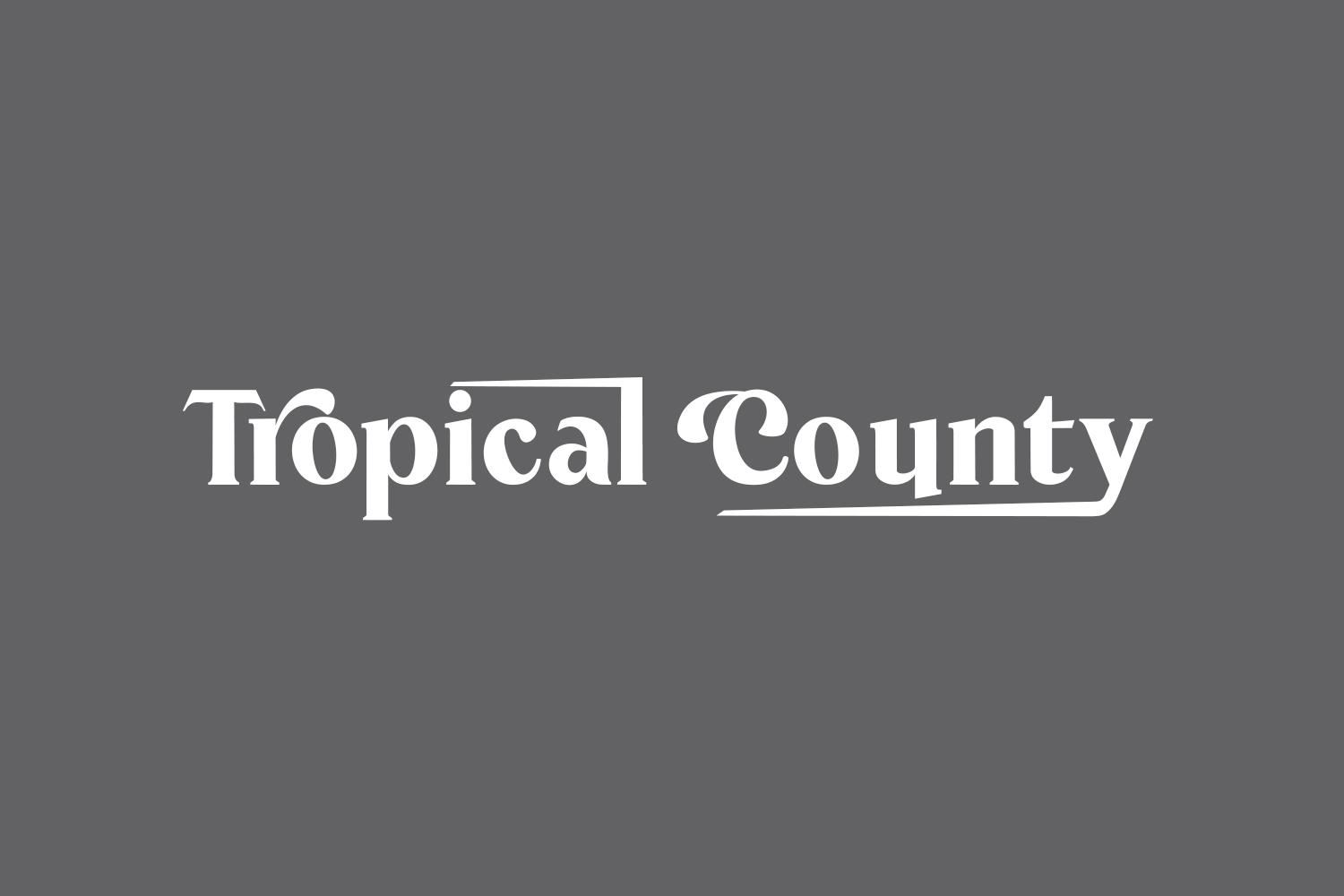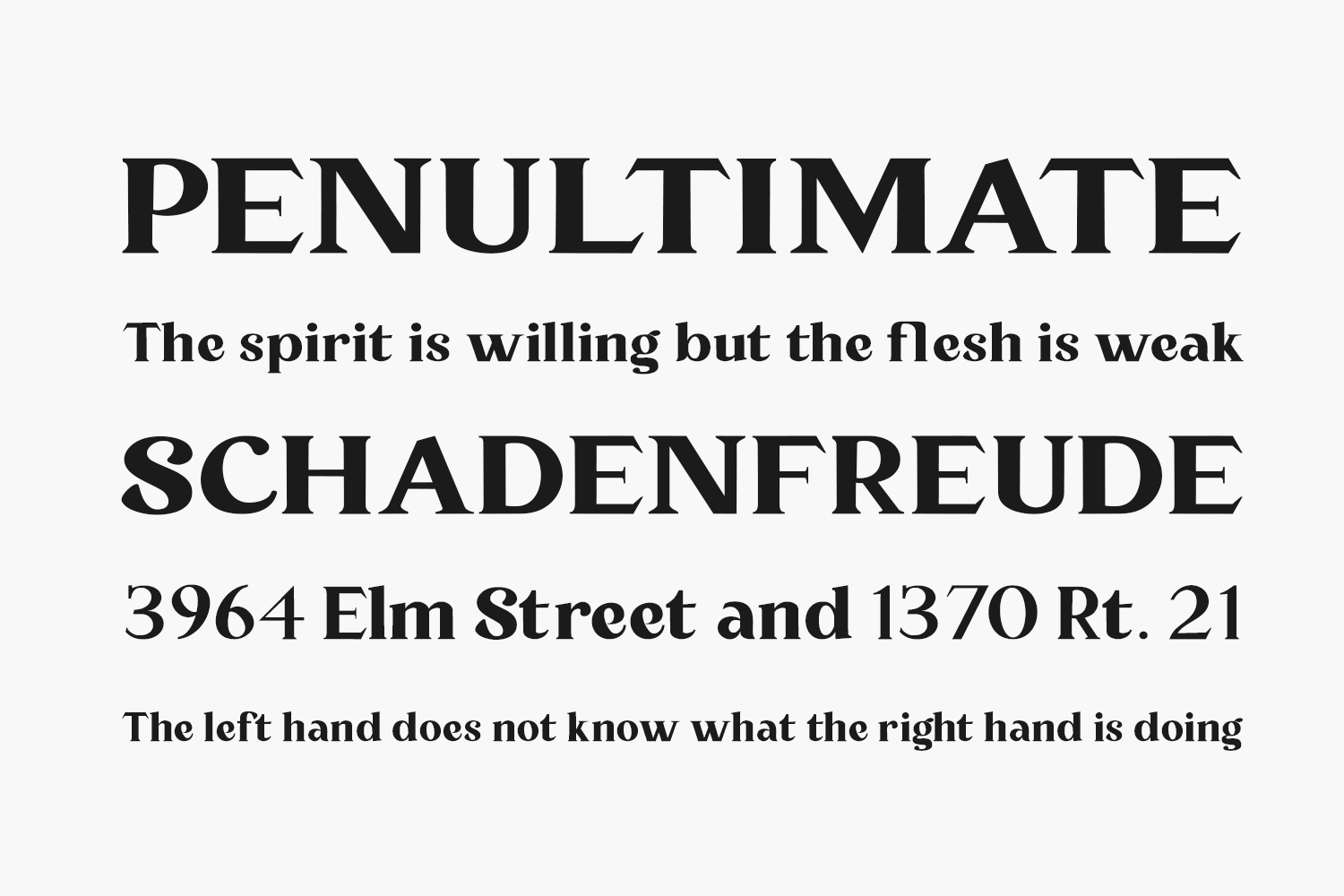
Introducing Tropical County Free Font, an exceptional and contemporary serif font boasting numerous alternates and swashes. Versatile and adaptable, it seamlessly enhances a myriad of design endeavors, from logos and branding to social media posts, advertisements, and beyond. Whether for product packaging, labels, photography, or web designs, this font elevates any project with its versatility. Expand your font library with this invaluable asset, guaranteed to enrich every creation across diverse themes and purposes. Download the font for free if you need it for personal use or purchase the full version for commercial use.